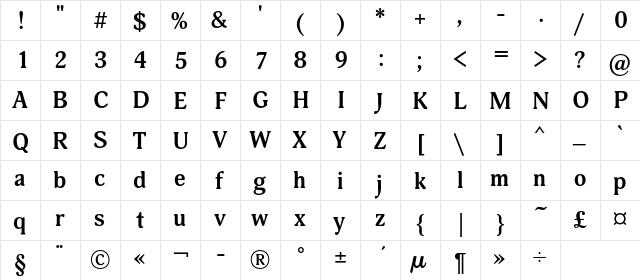
AdonisC Bold
Design Context for AdonisC Typeface
AdonisC takes a measured approach to typography — its balanced proportions and neutral character make it a reliable workhorse for both digital and print work. Its bold stroke weight gives it real presence on the page.